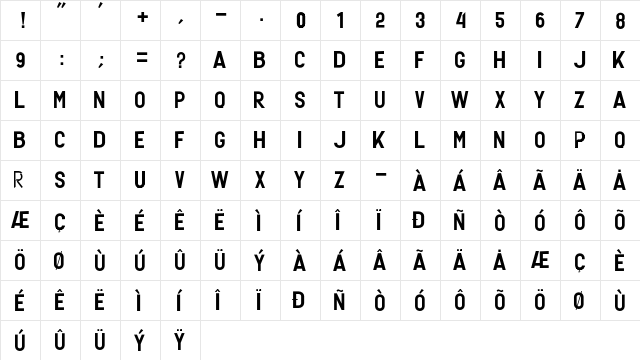
GERONIMO BASE Regular
| Designer | Lettersiro 2018 |
Design Context for GERONIMO BASE Typeface
GERONIMO BASE is a composed and adaptable typeface that performs quietly and consistently across a wide range of design contexts.